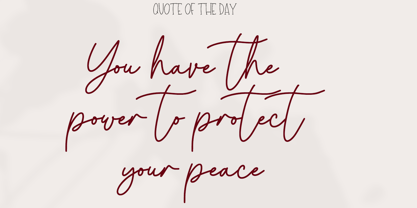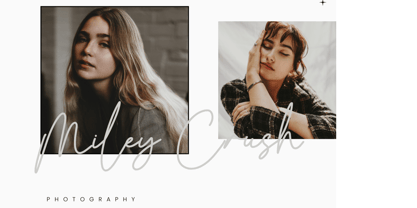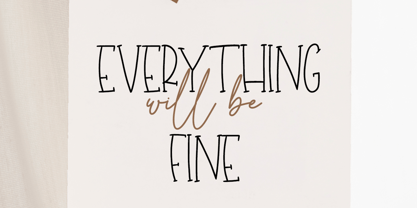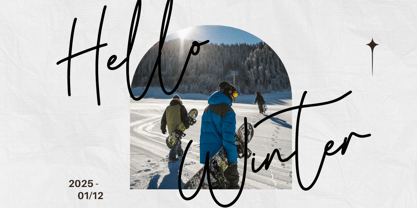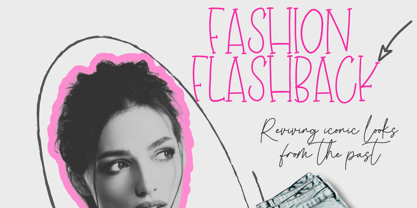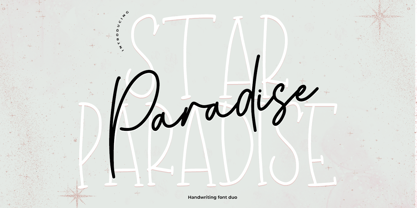
Star Paradise
by Cocodesign
The Star Paradise Font Family was designed by Muhammad Zaini and published by Cocodesign. Star Paradise contains 2 styles and family package options. More about this family
Star Paradise is a handwritten duo font designed to combine elegance and versatility in every stroke. With a refined script style paired with a complementary supporting font, it offers a balanced aesthetic suitable for various design applications, including branding, invitations, packaging, and social media. Its modern yet approachable design makes it an ideal choice for creating sophisticated and visually appealing projects.
Designers: Muhammad Zaini
Foundry: Cocodesign